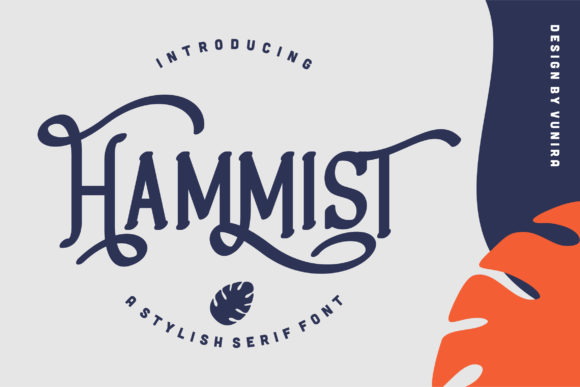
Embark on a captivating journey into the world of Hammist, an alluring and sophisticated serif font that will ignite your creativity and elevate your designs to breathtaking heights. Hammist's enchanting curves and graceful lines exude a timeless charm, inviting you to immerse yourself in a world of elegance and beauty.
Crafted with meticulous attention to detail, Hammist boasts a captivating versatility that empowers you to effortlessly transform your artistic visions into stunning masterpieces. Whether you seek to craft mesmerizing logos, captivating headlines, or enchanting invitations, Hammist is your ultimate font companion, ready to adorn your creations with an irresistible touch of sophistication.
Immerse yourself in the world of Hammist and discover a font that is not merely a collection of letters, but an artistic expression of your boundless imagination. Each character dances across the page with fluidity and grace, inviting you to explore a realm where words take flight and your creativity knows no bounds.
Hammist is the perfect font for tracing letters, providing a guiding framework that helps you master the art of calligraphy and penmanship. With its clear and well-defined strokes, Hammist becomes your personal tutor, guiding you towards creating flawless and elegant lettering that will captivate and inspire.
Fall head over heels in love with Hammist's incredibly versatile style, and let your imagination soar as you create spectacular designs that leave a lasting impression. From whimsical invitations to sophisticated branding, Hammist effortlessly adapts to your every need, becoming an indispensable tool in your creative arsenal.